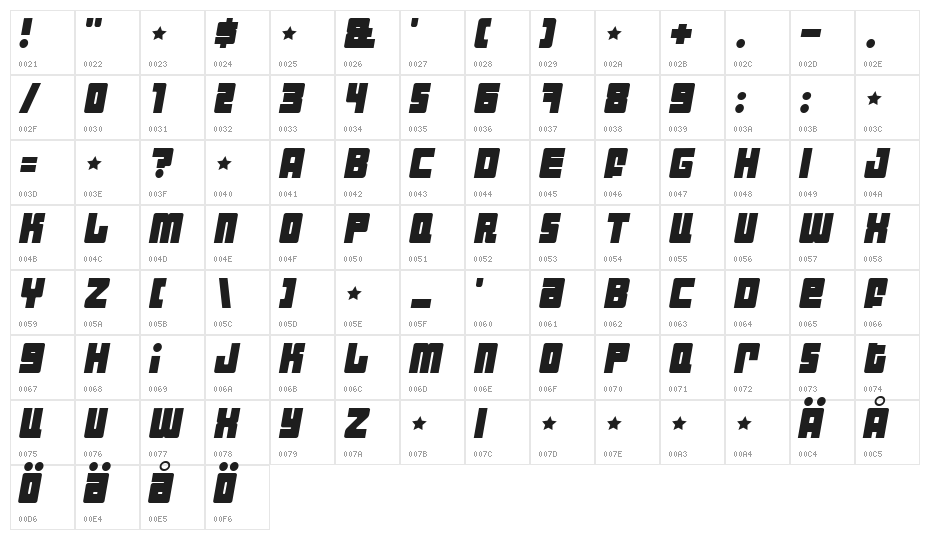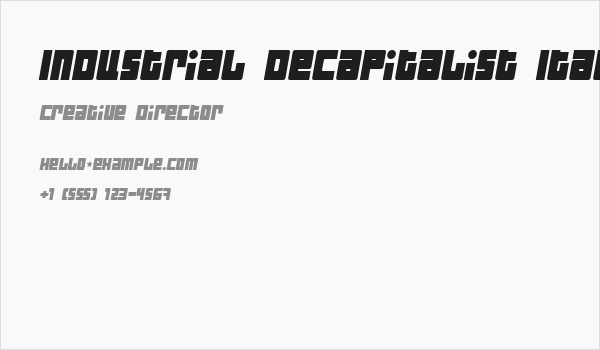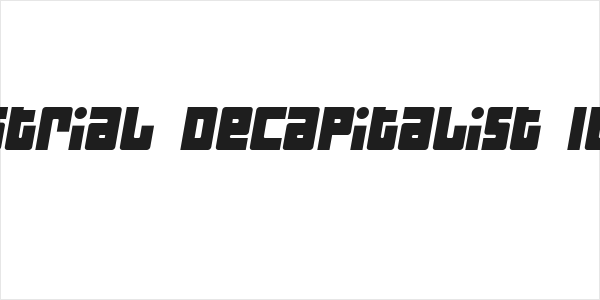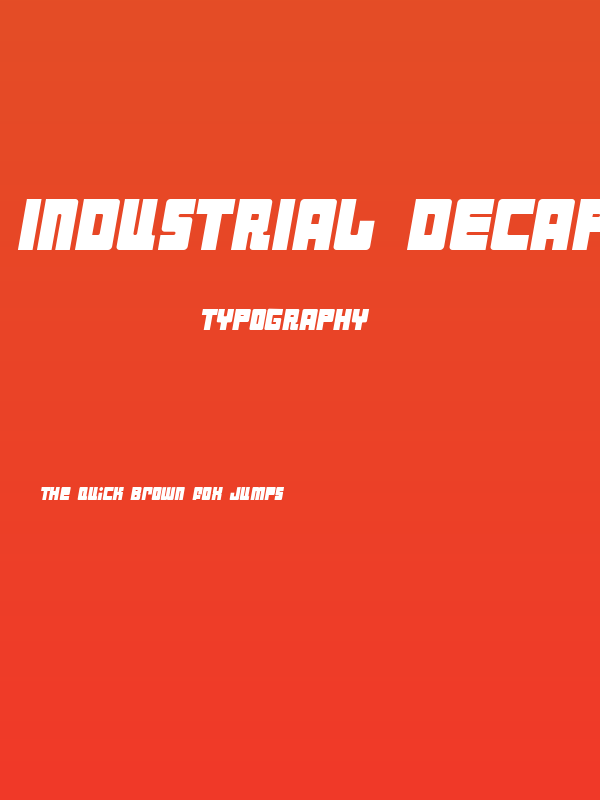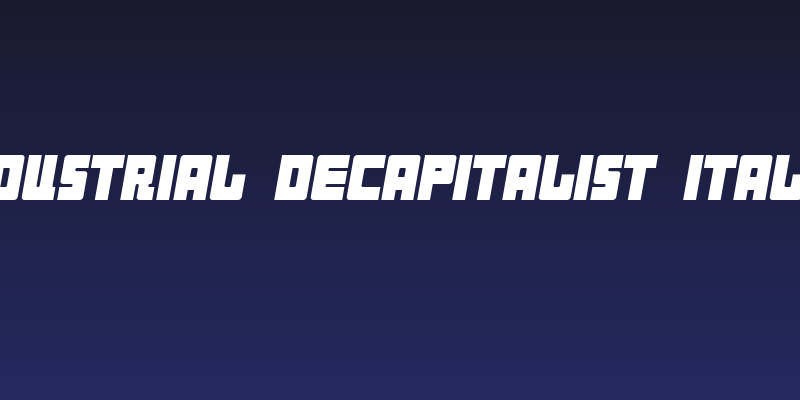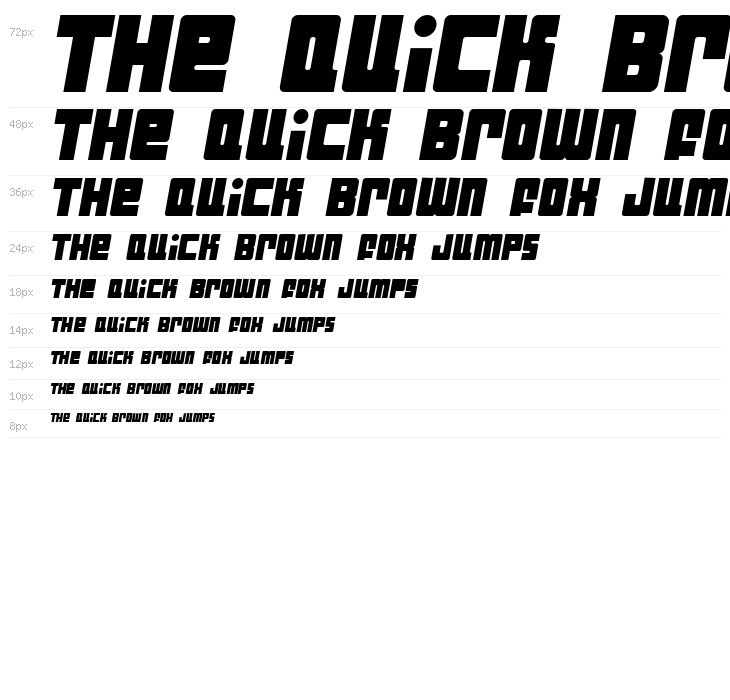
Industrial Decapitalist Italic Font
Industrial Decapitalist Italic Description
This font features a bold, geometric style with a strong industrial influence. The characters are blocky and angular, with a slight italic slant that adds a sense of motion and dynamism. The uppercase and lowercase letters maintain a consistent weight, contributing to a cohesive and uniform appearance. The numbers and special characters follow the same design principles, ensuring a harmonious look across all glyphs. The font's boldness and unique style make it stand out, while the italic angle gives it a modern edge. It's well-suited for projects that require a strong visual impact.
| Overall Style | Modern, Industrial |
| Proposed Projects | Ideal for branding, posters, headlines, and any design requiring a bold statement. |